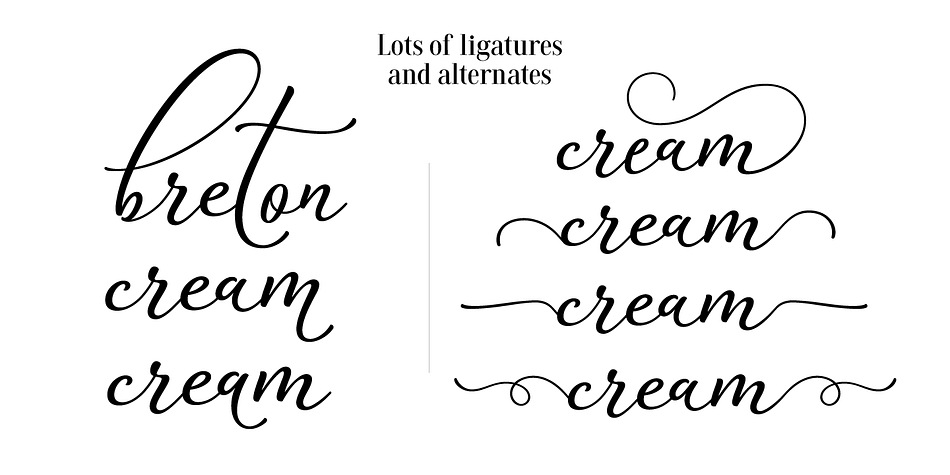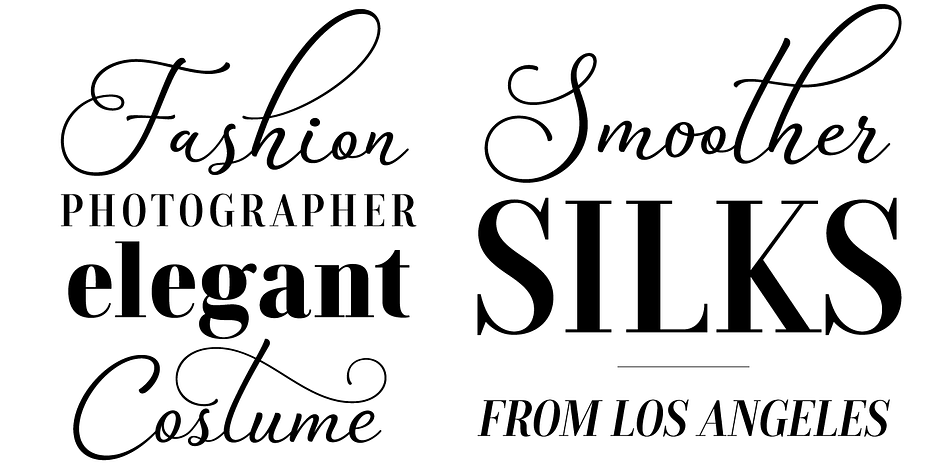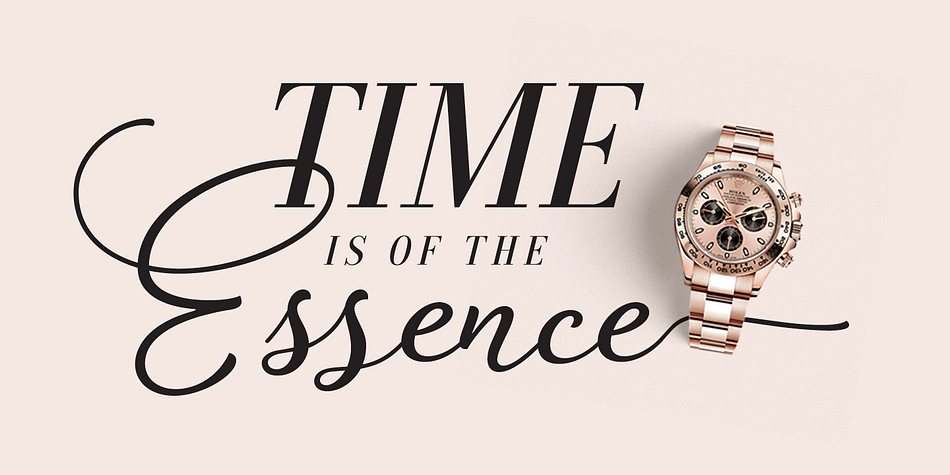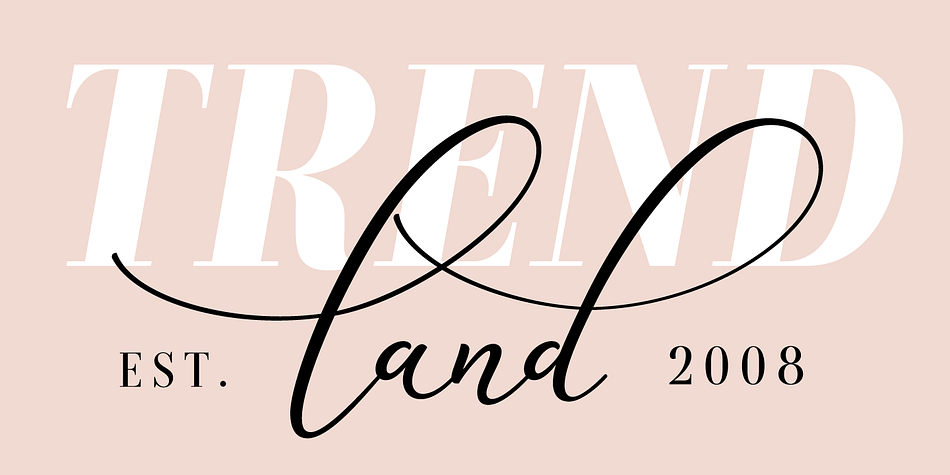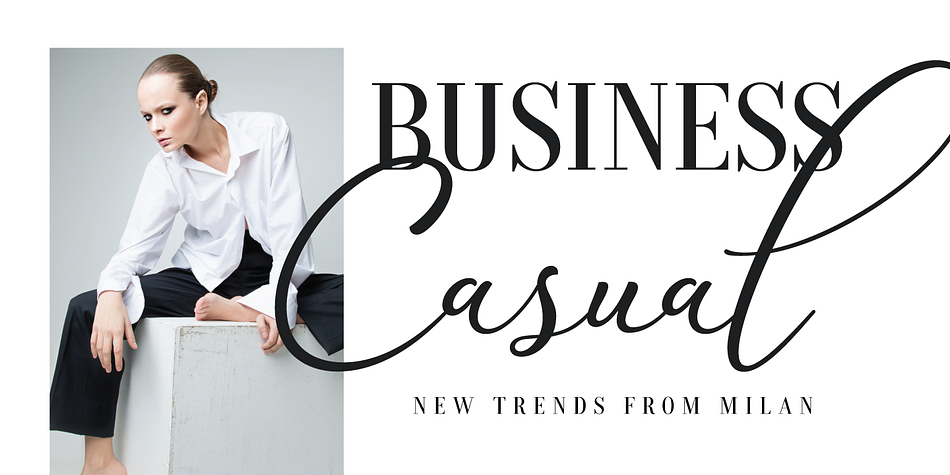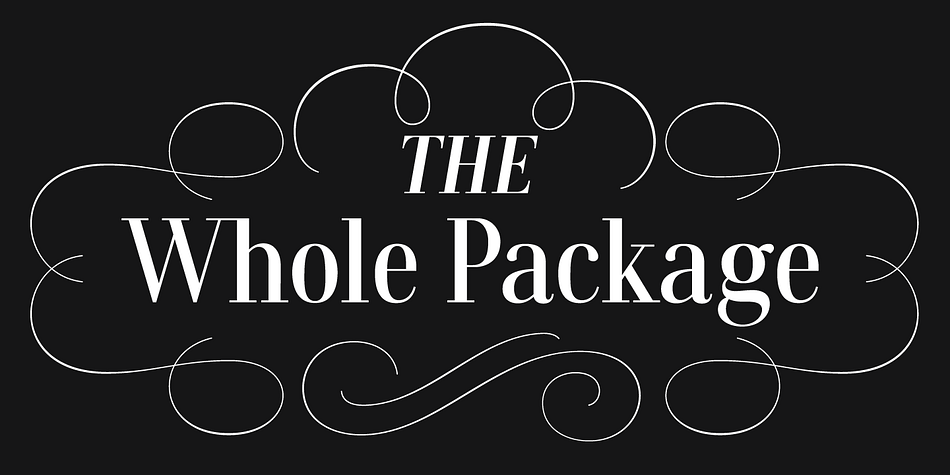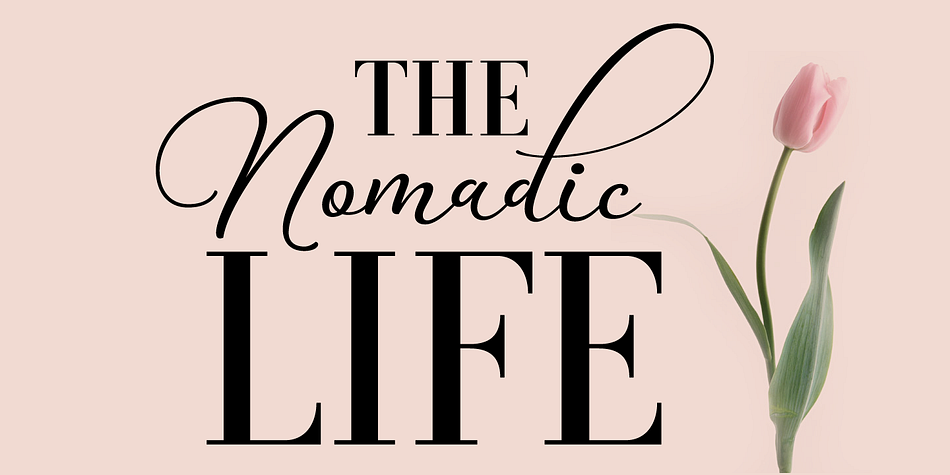
Designed by Veneta Rangelova, Galiano is a multiple classification font family. This typeface has twelve styles and was published by DearType.
Galiano is an elegant combination of a script and a narrow modern serif. It is slender, feminine and classy, while still maintaining a friendly feel. Galiano is versatile and will work perfectly for fashion, e-commerce brands, trend blogs, wedding boutiques or any business that wants to appear upscale and chic. With its 1500+ glyphs the Galiano Script is perfect for creating original and functional designs. It has extensive language support and tons of ligatures, alternates, stylistic sets and swashes that add visual interest to every letter.
The Galiano Font Family in a nutshell:
- Galiano - a dancing baseline script with signature loops for ascenders and descenders
- Galiano Inline - similar feel to Galiano, notably featuring a standartized x-height
- Galiano Text - a simpler version of the script with no fancy loops for ascenders and descenders and no swashes and alts.
- Galiano Serif + Italics - perfect for headlines
- Galiano Ornaments - a set of 80 beautiful ornaments to embellish your typography.
You can use the Galiano Family for high-end logotypes and magazine headlines, but letís not forget greeting cards, invitations, posters, book covers, ads and the various web and screen usages. The overall feel of the font is elegant, sophisticated with a touch of informal and it is ideal if you want to convey a sense of class and style.